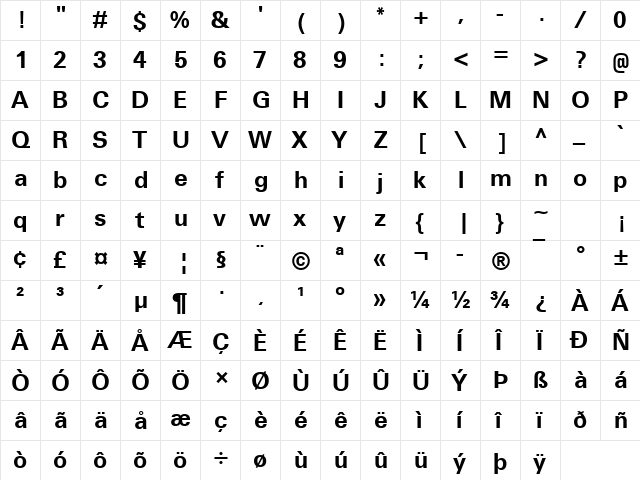
Utah MT Bold
| Foundry | Agfa Monotype Corporation |
| Designer | Agfa Monotype Corporation |
Design Context for Utah MT Typeface
Utah MT offers clean, dependable letterforms without strong stylistic allegiance, making it a practical choice for designers who need flexibility. Its bold stroke weight gives it real presence on the page.
Pro Tip: Pair Utah MT with a font of contrasting weight or personality to build a more expressive typographic hierarchy.